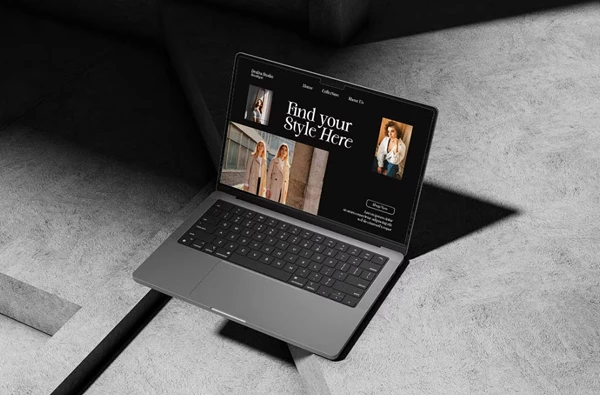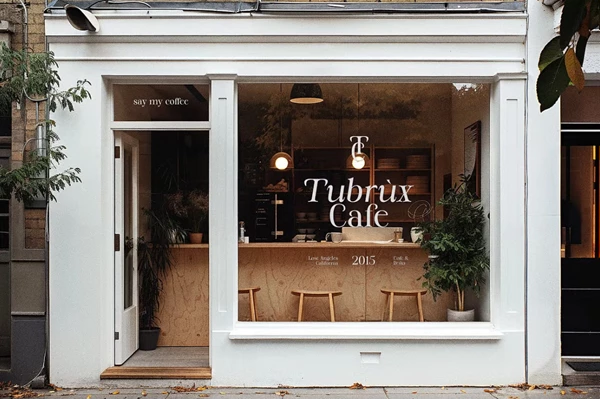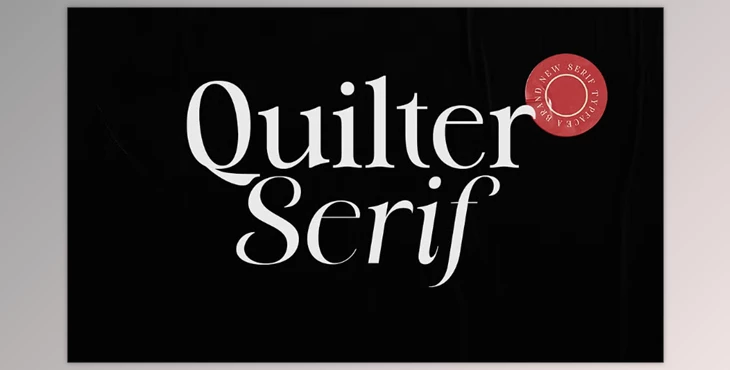
DS Quilter Variable Serif Font:
The DS Quilter Variable Serif Font is a stylish, elegant, and multifaceted font that is perfect for luxury branding and editorial works. It features minimalist chic with a classic structure, transforming itself into a modern design with weights varying from Light to ExtraBold. This is perfect for a designer looking to create something elevated and responsive for luxury brands.
Some great features of DS Quilter Variable Serif Font:
- Variable smooth from Light to ExtraBold
- 30 luxuriously cohesive ligatures
- 256+ glyphs containing Latin-based multilingualism
- PUA encoded for accessibility to all alternates and special characters
DS Quilter combines classic serif charm with modern appeal. From creating a signature logo for a boutique perfume line to the luxurious packaging of premium skincare items, this font offers clarity, flexibility, and upscale presence for any high-end project.